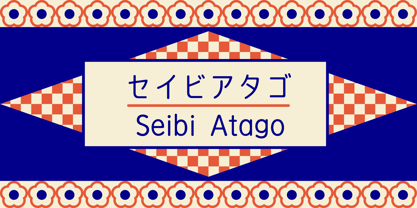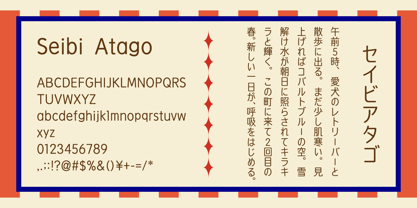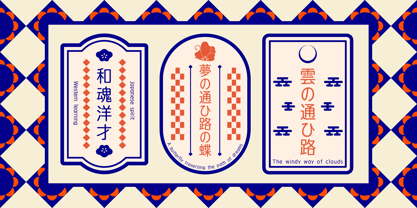
Seibi Atago
About Nihon Literal
Since its foundation, Nihon Literal has accumulated trust and a successful track record mainly in the production of characters used for the headings of book advertisements by publishers and newspaper companies. Among them, "Seibi Font" is a unique typeface brand created to satisfy a customer's request for a font that does not exist in print and typesetting and cannot be represented with existing characters. We will continue to combine the technologies and know-how that have been cultivated over the years in the development of "Seibi Font" and bring passion to the making of fonts by paying attention to details while foremost thinking about customers who wish to convey their sentiments. 日本リテラルは創業以来、主に出版社や新聞社の書籍広告における見出し用文字の制作に携わりながら、多くの信頼と実績を積み重ねてまいりました。 その中で、活字や写植にない書体、または既成の文字では表現できない書体がほしい、というお客様のご要望に応えて誕生した独自の書体ブランド、それが「セイビフォント」です。 これからも私たちは、セイビフォント開発において長年培ってきた技術とノウハウを結集し、思いを伝えたい人のことを第一に考えながら、細部にまでこだわった書体づくりに情熱を注ぎ続けてまいります。